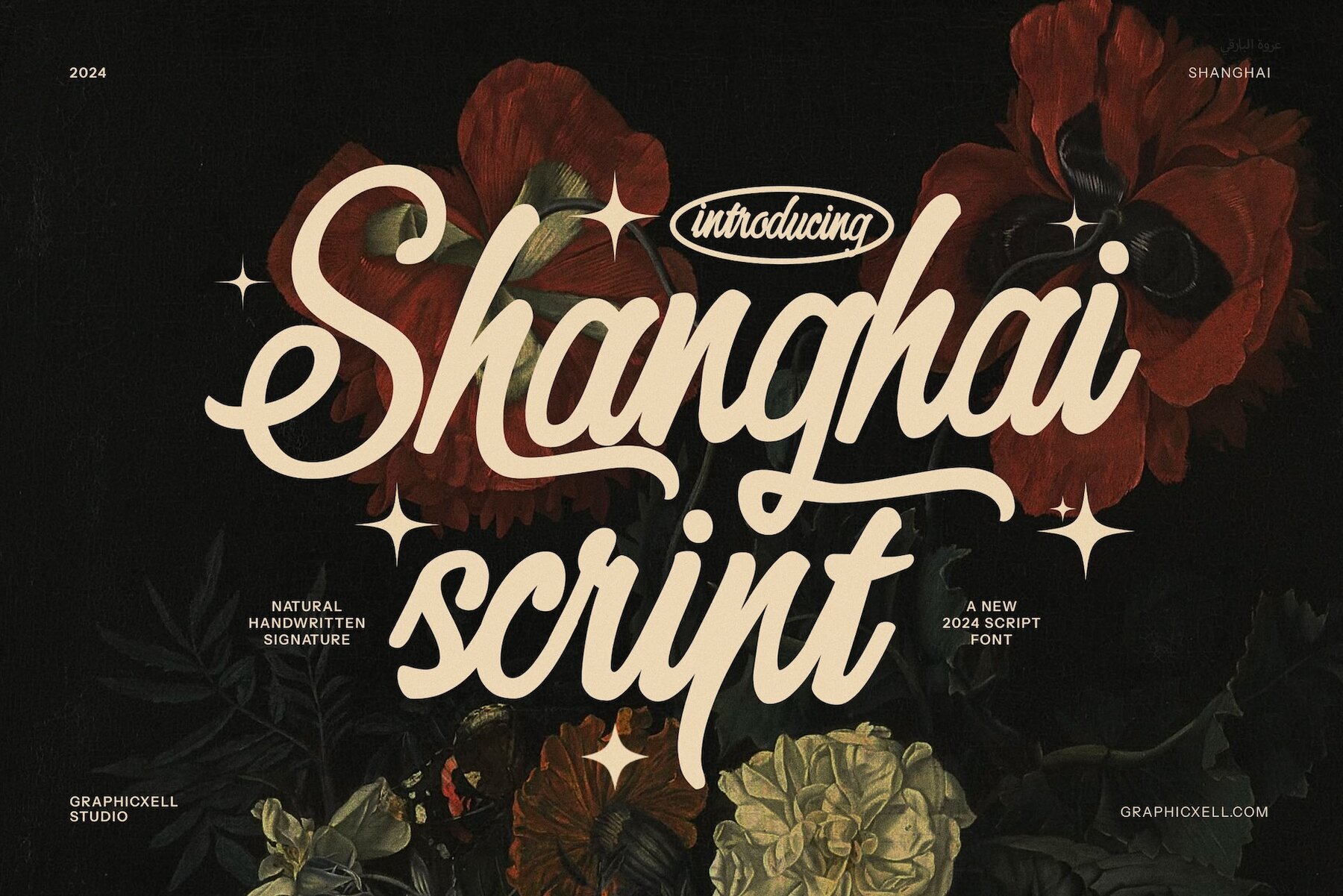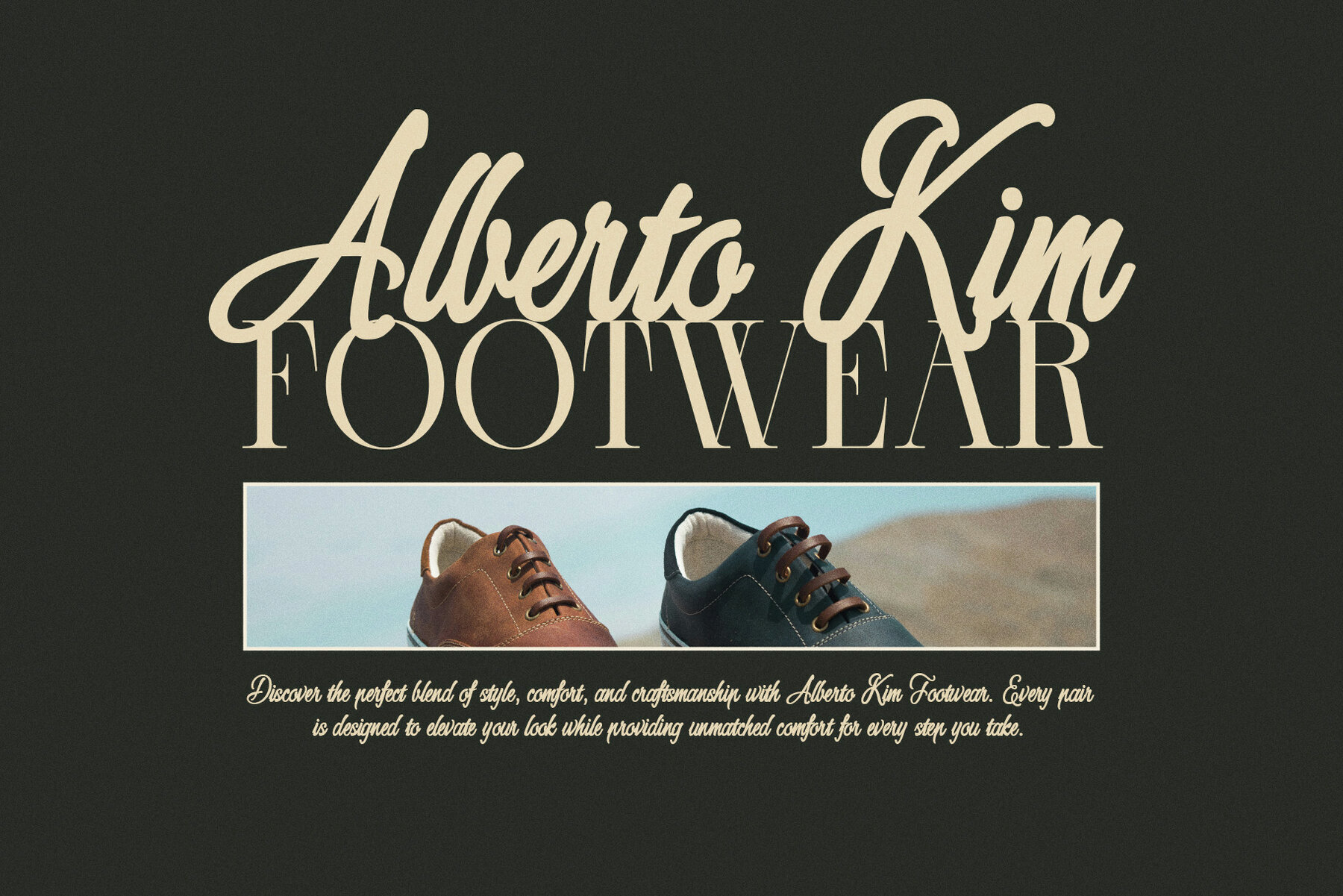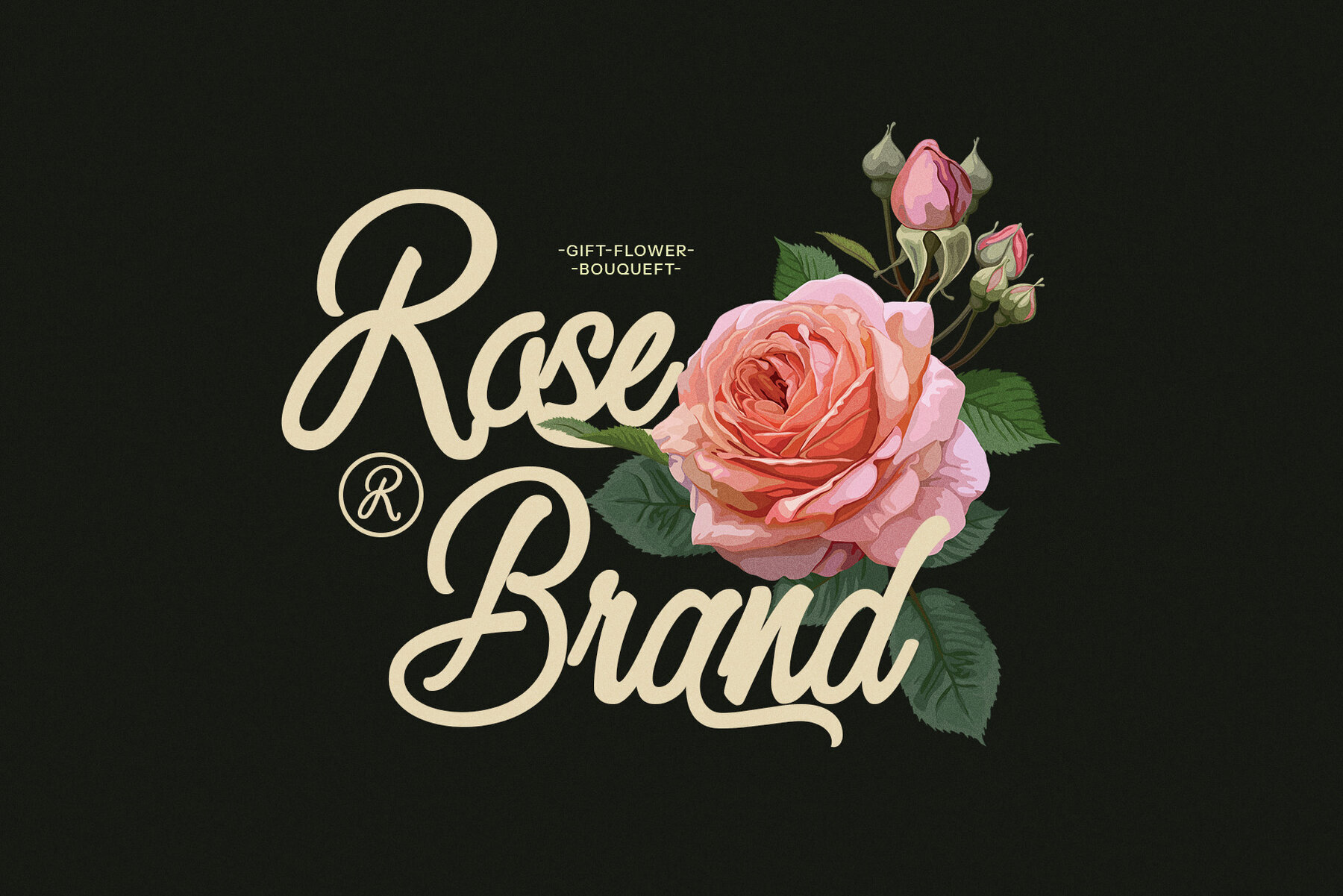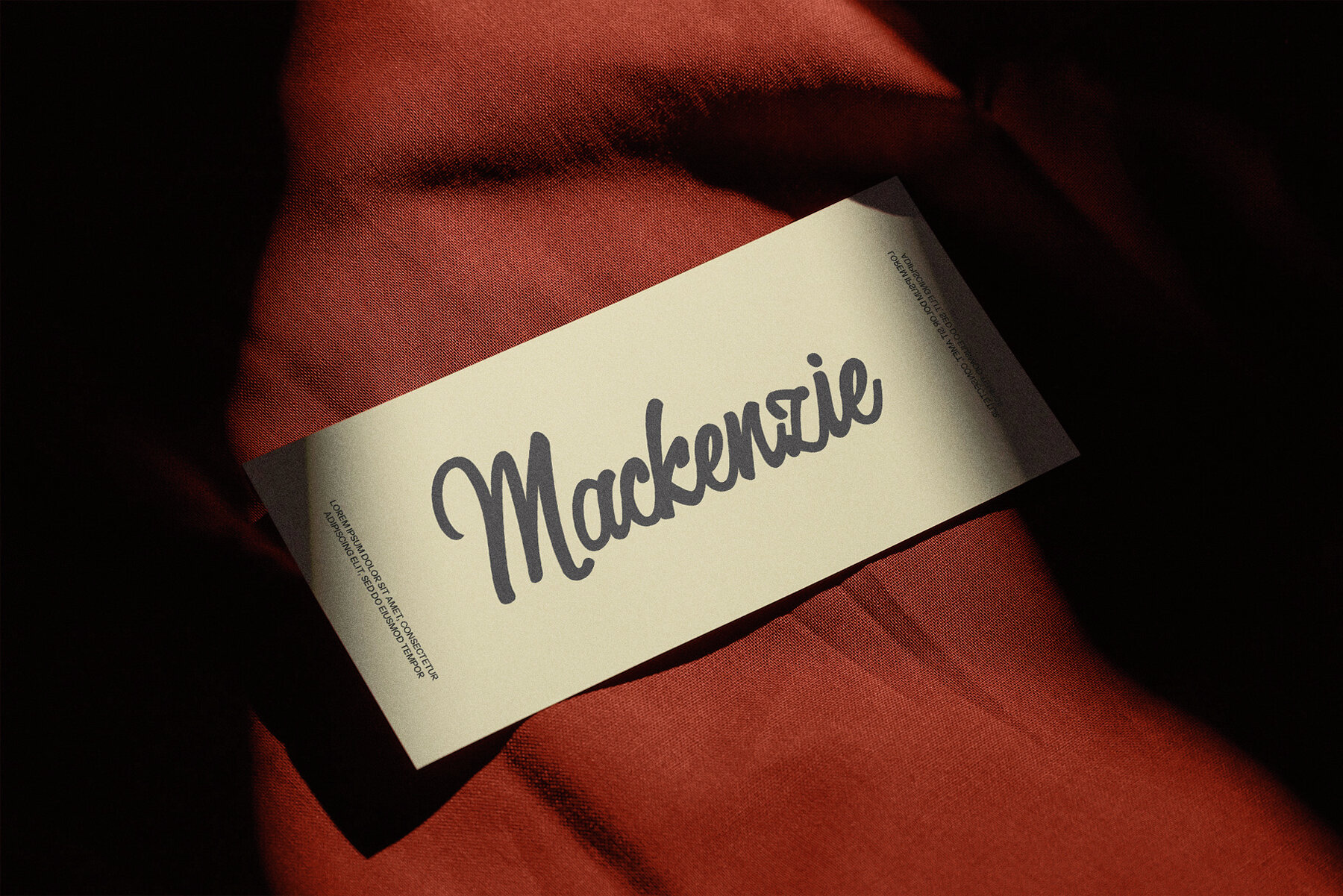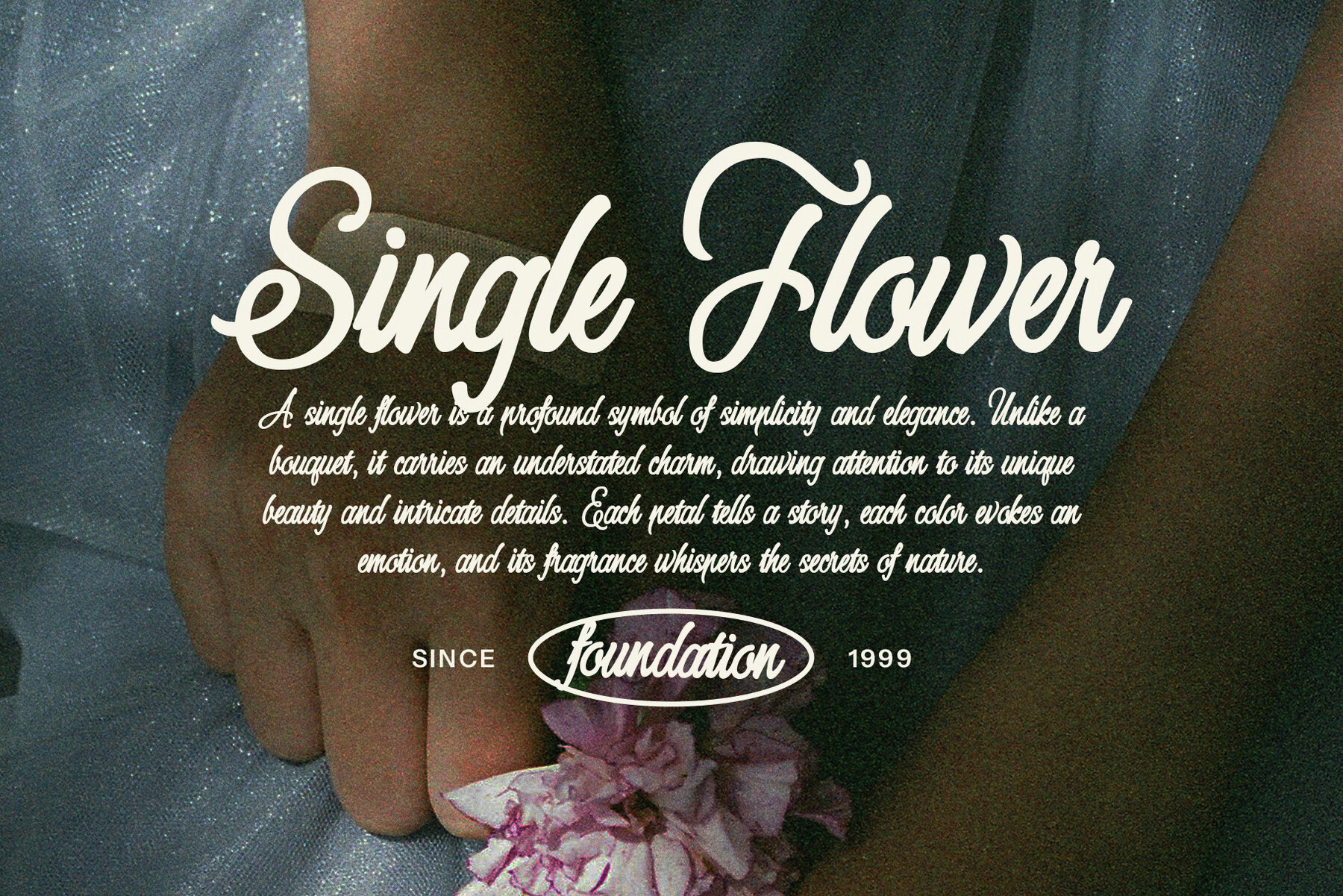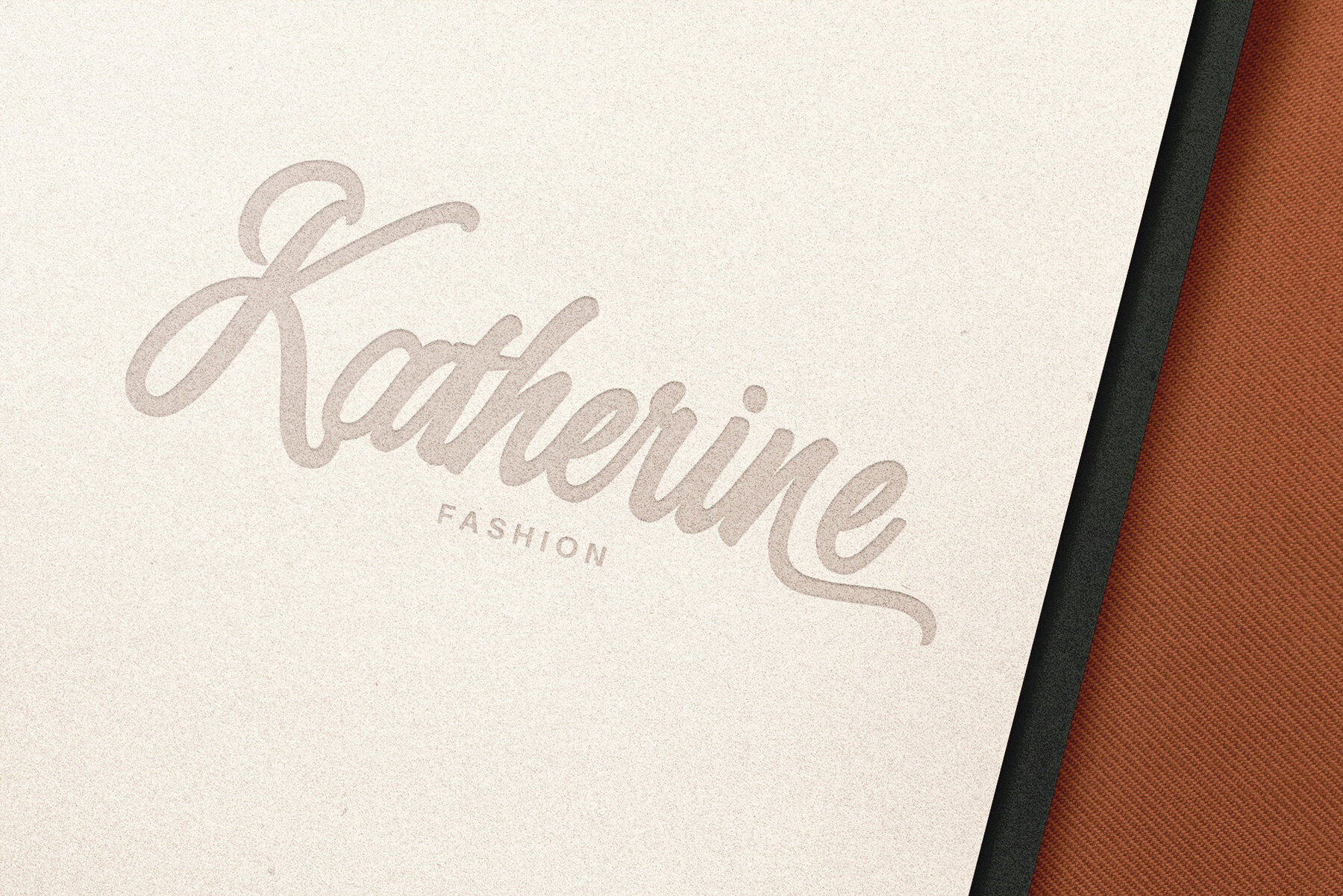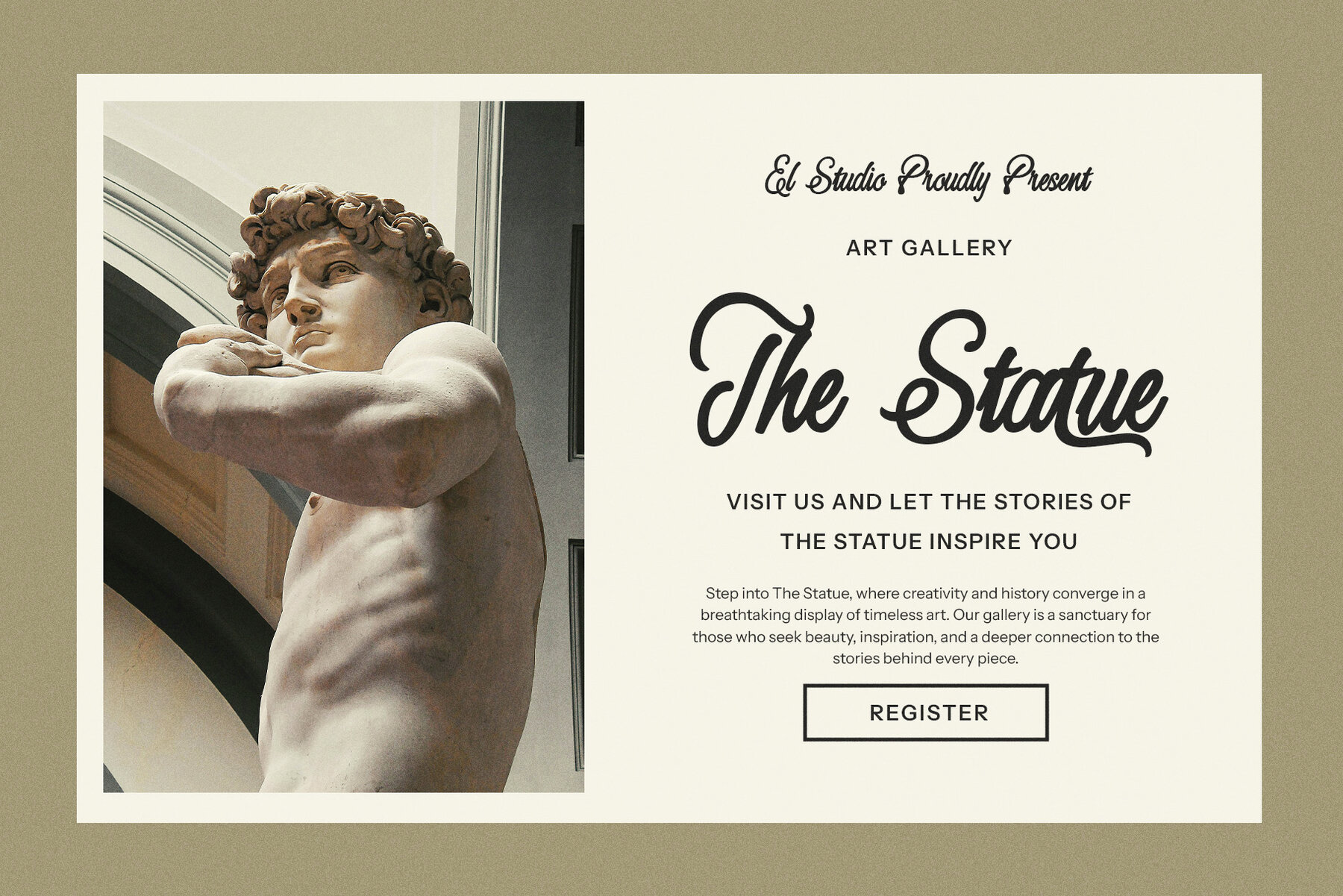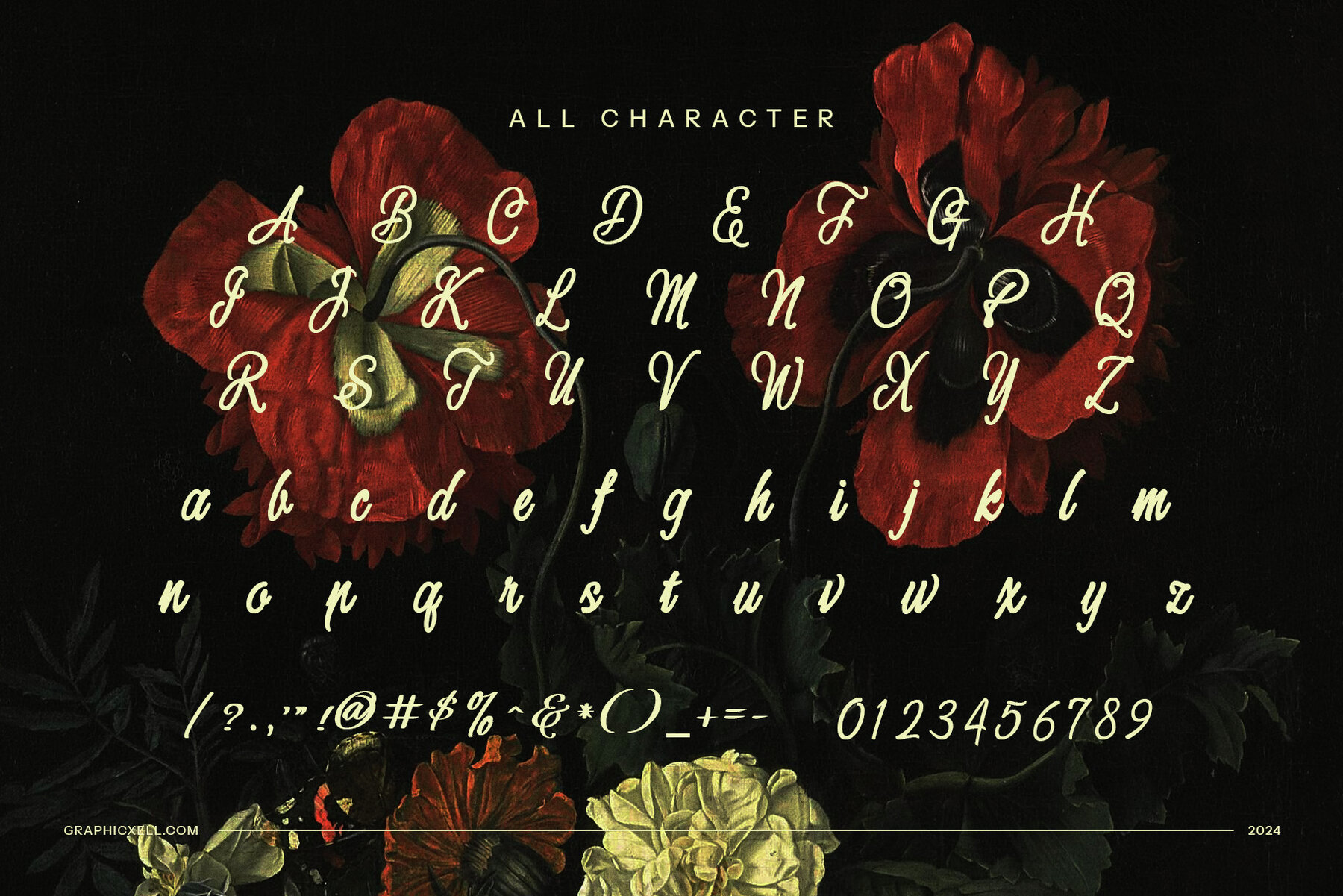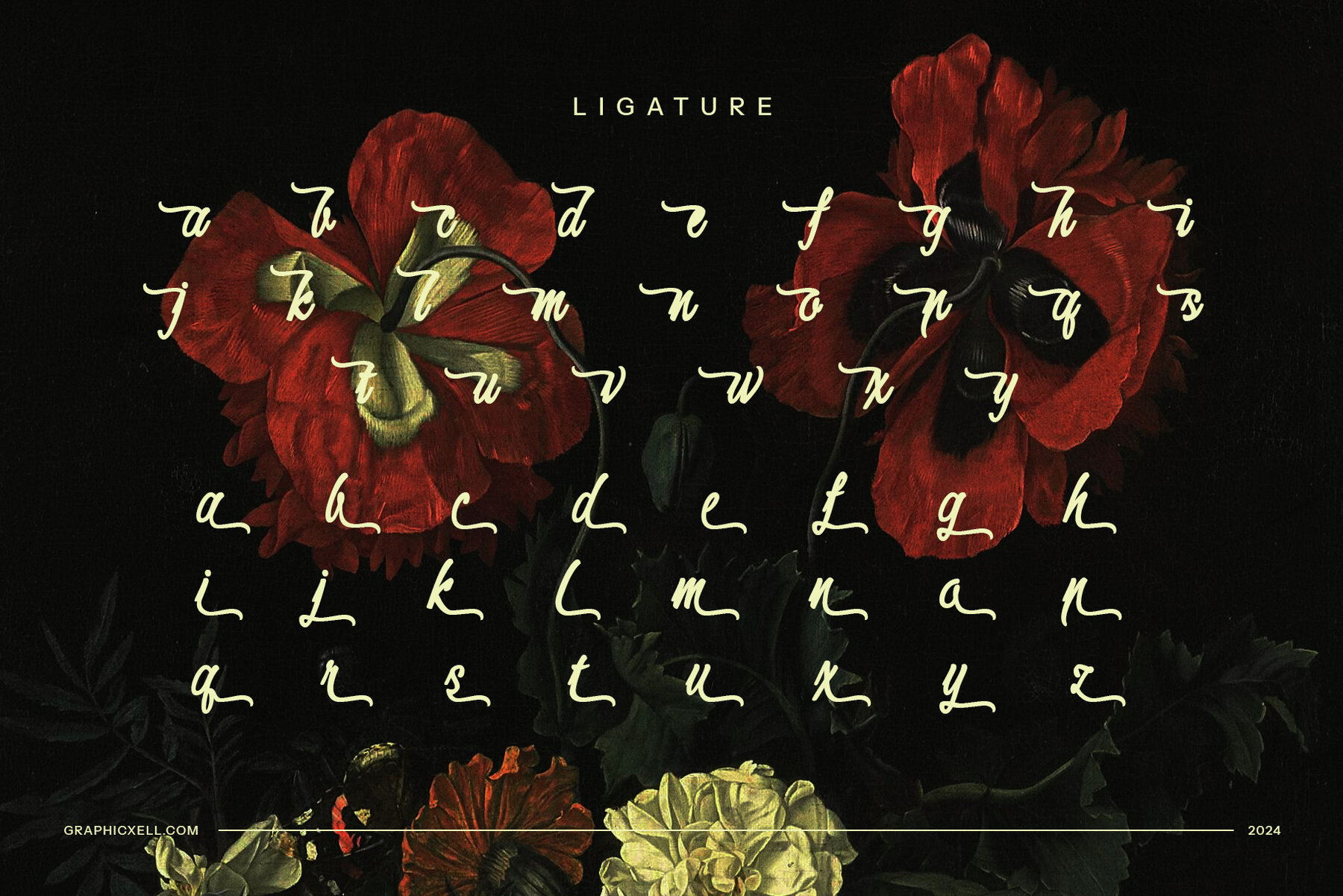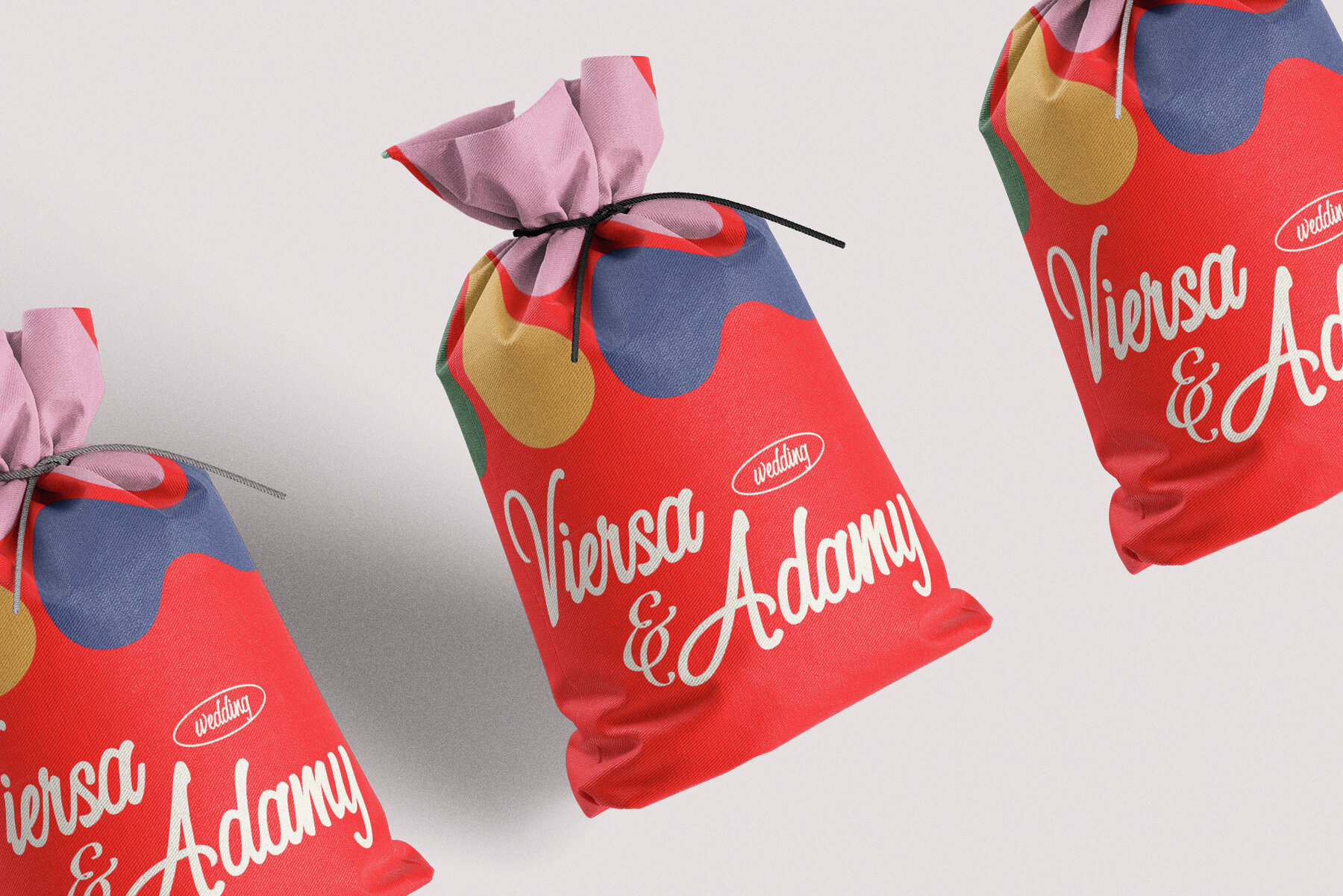
Shanghai Font
Shanghai
Shanghai Signature Font is a sophisticated and stylish script font that brings the essence of natural handwritten strokes to your designs. Crafted with precision and a touch of elegance, this font radiates charm and uniqueness in every curve and line. With its smooth, flowing letterforms and graceful alternates, it captures the beauty of authentic handwriting while offering a polished, professional appeal. This versatile font is a perfect choice for creating luxurious and artistic designs. Its refined aesthetic is ideal for projects such as branding, logo creation, wedding stationery, album covers, and invitations, exuding a sense of class and individuality. Shanghai Signature Font shines in both digital and print mediums, seamlessly enhancing posters, business cards, websites, advertisements, and magazine layouts. The font's standout alternate features provide endless creative possibilities, allowing you to customize each piece with distinctive letter variations. These features make it especially suitable for crafting unique, memorable designs that stand out. Its elegant yet approachable style is perfect for creative platforms like Canva, ensuring your projects are both visually stunning and easy to achieve. Whether you're designing for a special event, crafting a personal brand, or enhancing your digital content, Shanghai Signature Font adds a layer of sophistication and artistry that leaves a lasting impression. Embrace its graceful strokes to elevate your design game and bring your vision to life with a touch of modern elegance.